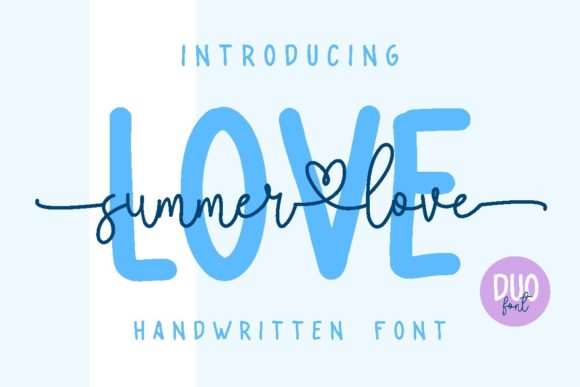
Journey into the realm of elegance with Summer Love Font, a spirited sans serif and handwritten duo poised to captivate your creative vision. Its intricate and smooth curves dance across your designs, evoking feelings of joy and whimsy. Immerse yourself in the world of Summer Love, where beauty meets versatility, and let your imagination soar.
**Enchanting Sans Serif:**
- Summer Love's sans serif characters are a symphony of sophistication, exuding a modern and minimalist charm.
- Crisp lines and open letterforms create a clean and airy aesthetic, perfect for adding a touch of understated elegance to your projects.
**Whimsical Handwritten Script:**
- The accompanying handwritten script is an exquisite tapestry of flowing strokes and playful swashes.
- Its graceful curves and organic charm add a touch of personal flair to your designs, transforming them into unique and captivating expressions.
**A Match Made in Creative Heaven:**
- Together, the sans serif and handwritten fonts of Summer Love form a harmonious partnership, offering endless creative possibilities.
- Whether you're designing logos, branding materials, wedding invitations, or heartfelt letters, this font duo will elevate your words with a touch of magic.
**Features That Ignite Your Creativity:**
- Summer Love's extensive character set provides a rich palette for expressing your ideas, including uppercase, lowercase, numbers, and a delightful selection of punctuation and symbols.
- Multilingual support ensures that your designs can reach a global audience, transcending language barriers and capturing hearts worldwide.
- Expertly crafted kerning and leading optimize the spacing and readability of your text, ensuring that every letter dances in perfect harmony, creating a visually pleasing flow.
**Unlimited Creative Horizons:**
- With Summer Love Font by your side, your creative dreams know no bounds.
- Design captivating logos that exude professionalism and charm.
- Create eye-catching posters that invite viewers into your enchanting worlds.
- Craft elegant wedding invitations that set the tone for a day filled with love and joy.
- Write heartfelt letters that convey the depth of your emotions with an artistic flair.
- Teach your little ones the beauty of penmanship with Summer Love's legible and engaging handwritten script.
**Your Journey Begins Now:**
- Embrace the beauty of Summer Love Font and embark on a creative odyssey like never before.
- Elevate your designs to new heights of sophistication and charm.
- Unleash your imagination and let your creativity flourish with this remarkable font duo.
**Summer Love Font - Where Art and Versatility Intertwine.**